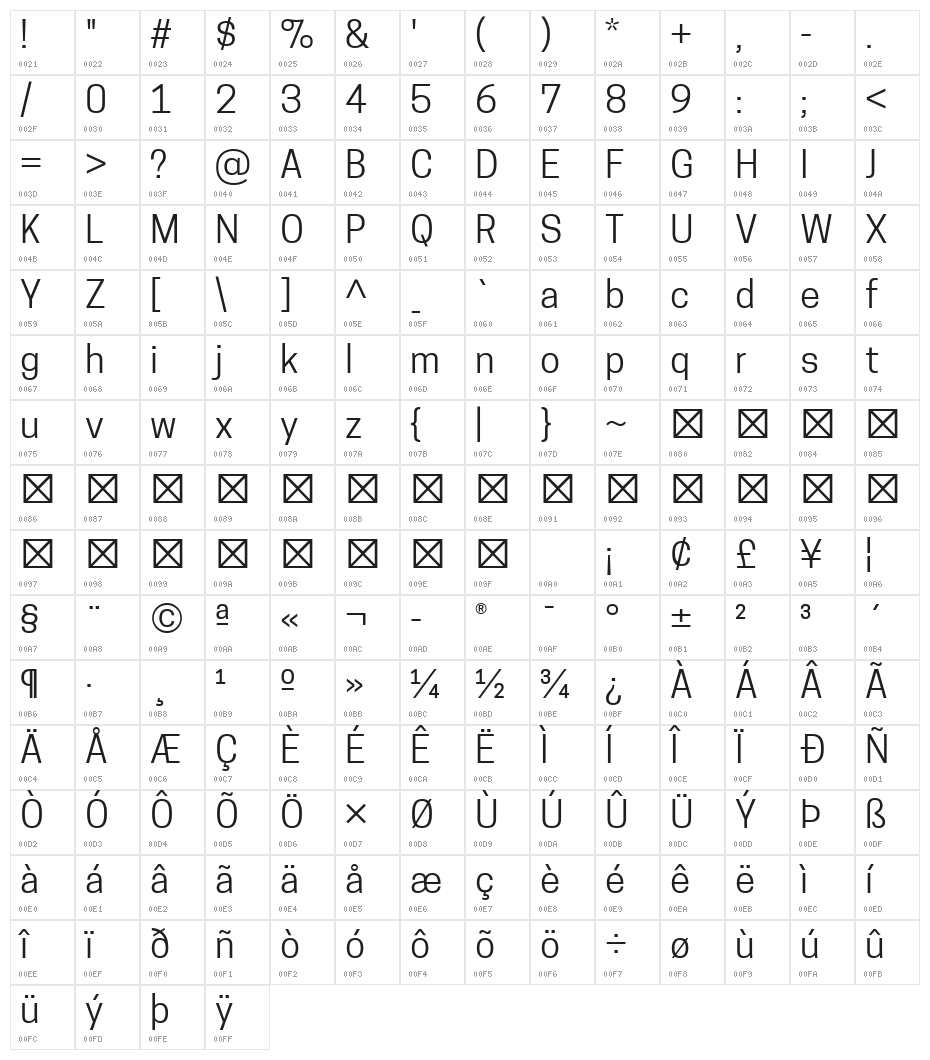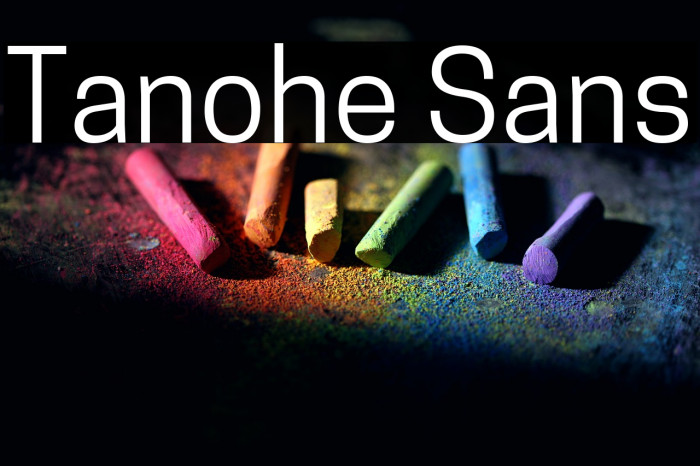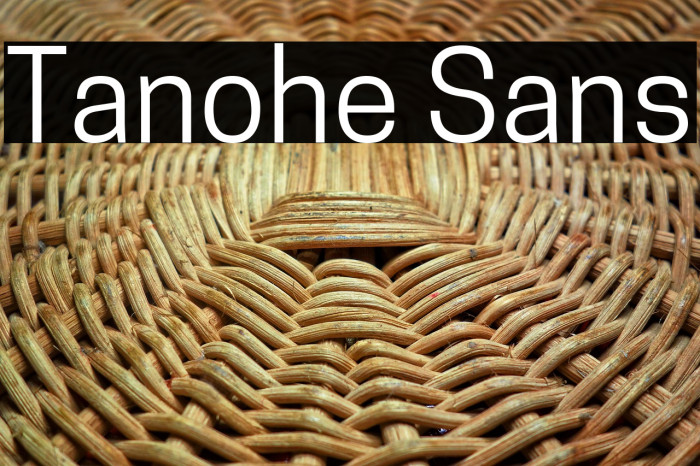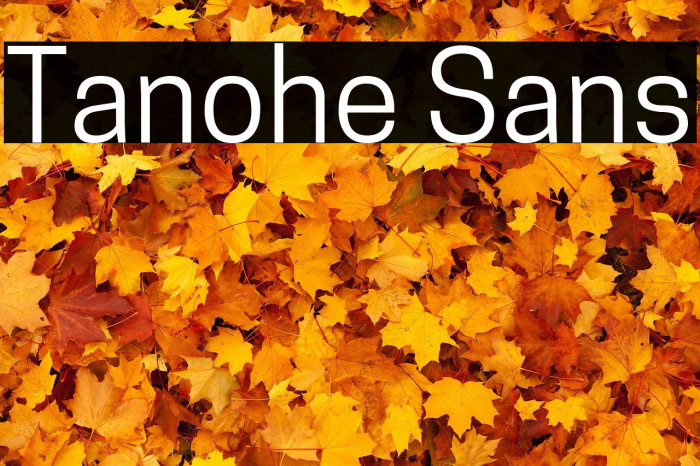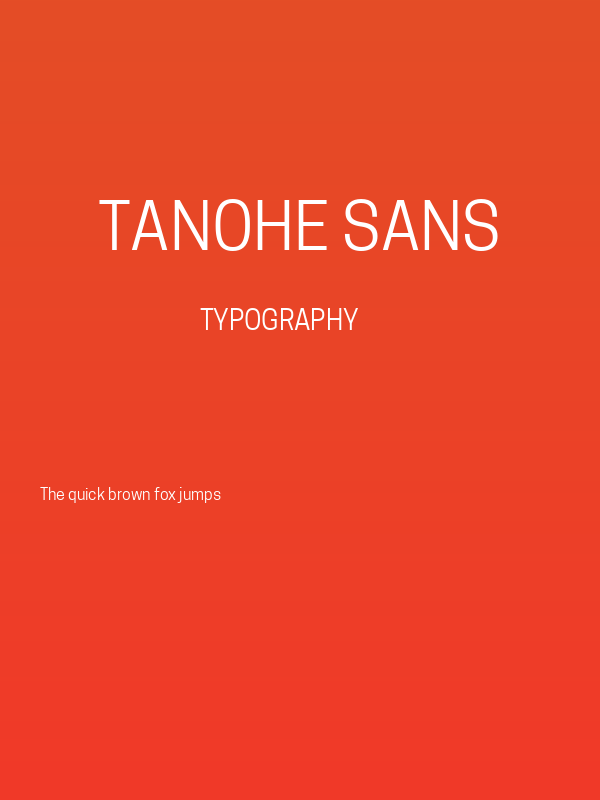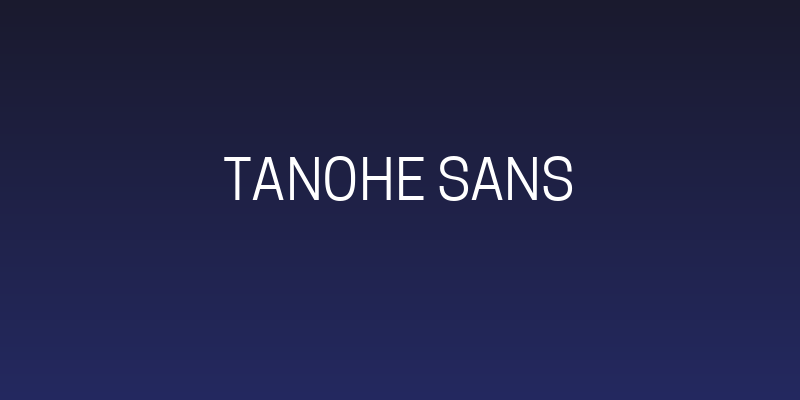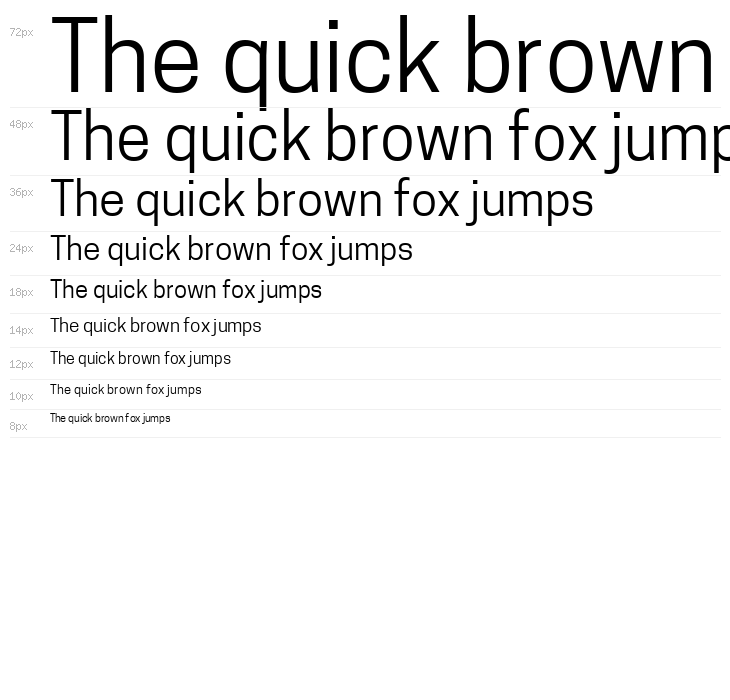
Tanohe Sans Font
Tanohe Sans Description
This font features a clean and modern sans-serif design, characterized by its simplicity and readability. The letters are evenly spaced with a uniform stroke width, providing a balanced and harmonious appearance. The uppercase and lowercase letters maintain a consistent style, with rounded edges that soften the overall look. The numerals are clear and distinct, making them easily legible. Special characters are well-integrated, maintaining the font's cohesive aesthetic. This font is versatile, suitable for both digital and print media, offering a professional yet approachable feel.
| Proposed Projects | Ideal for branding, web design, corporate materials, and user interfaces. |